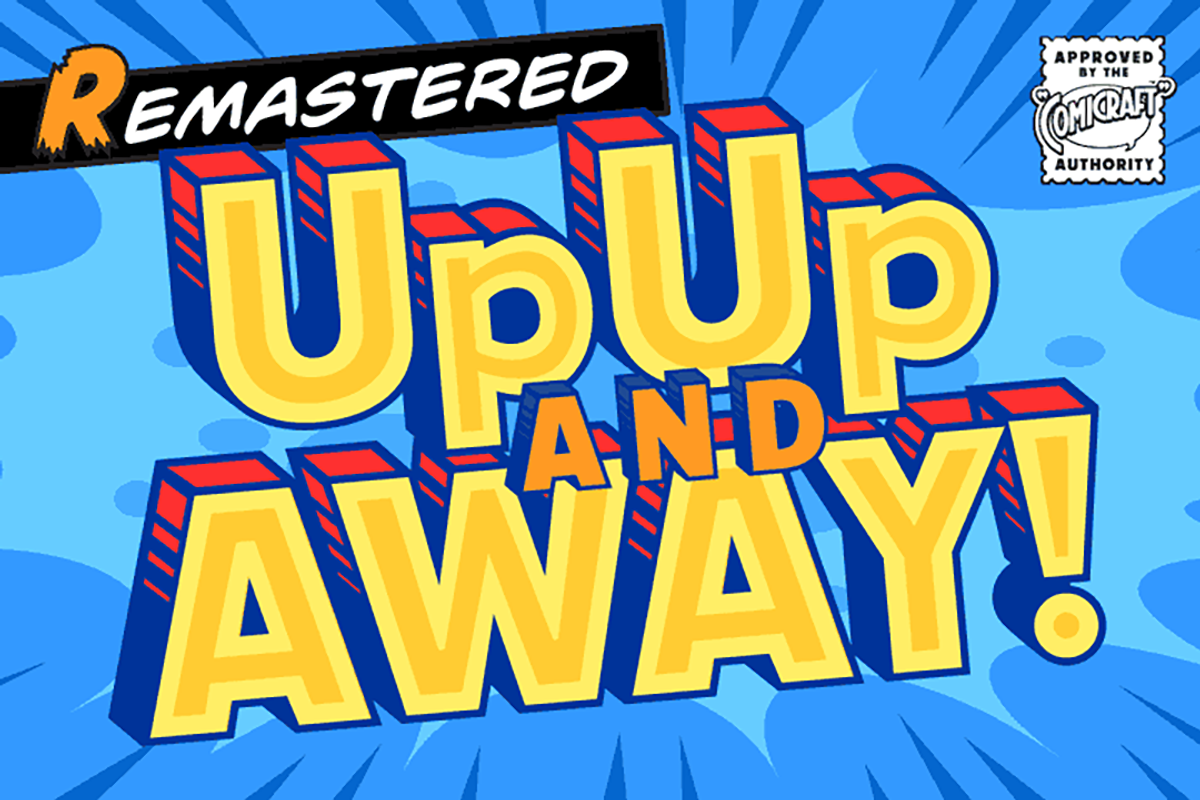
Up Up and Away Font Free Download is a playful and whimsical typeface designed to add joy and energy to your designs. With its rounded edges, bouncy letterforms, and fun character, this font is perfect for children's projects, party invitations, social media graphics, logos, and any design that needs a lighthearted, uplifting vibe.
Whether you're designing for a fun event, a colorful brand, or playful marketing materials, Up Up and Away Font Free Download brings a sense of movement and excitement to your typography.
Its cheerful personality makes it ideal for both print and digital use, bringing a fresh and joyful touch to any creative project.